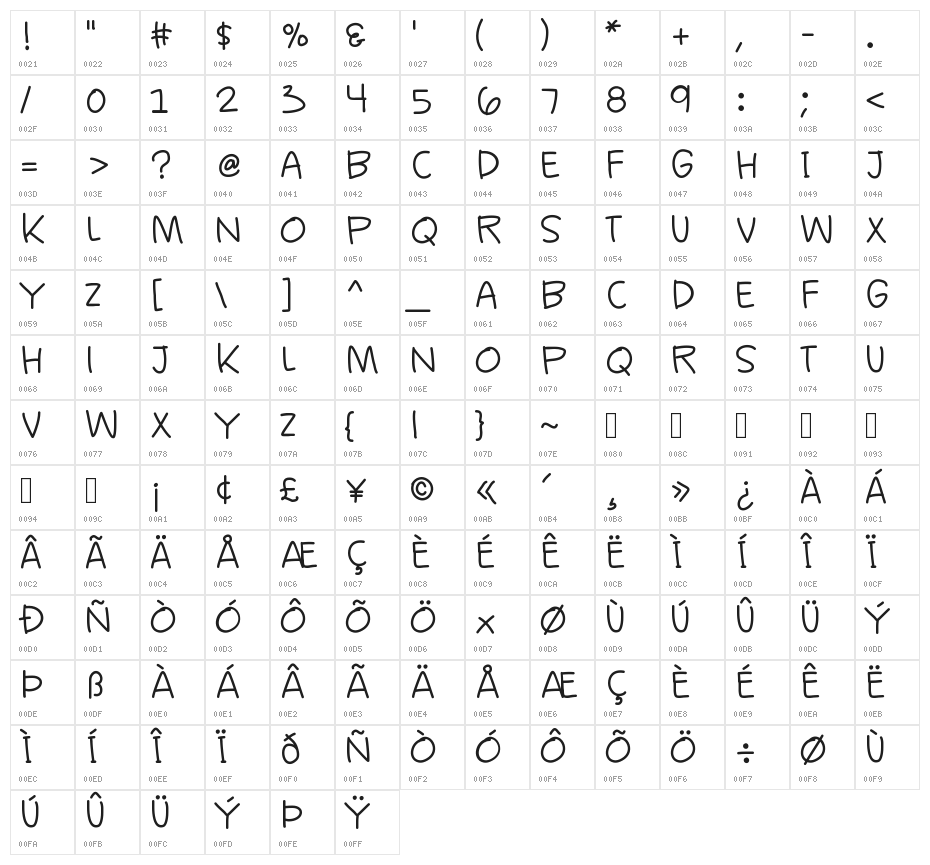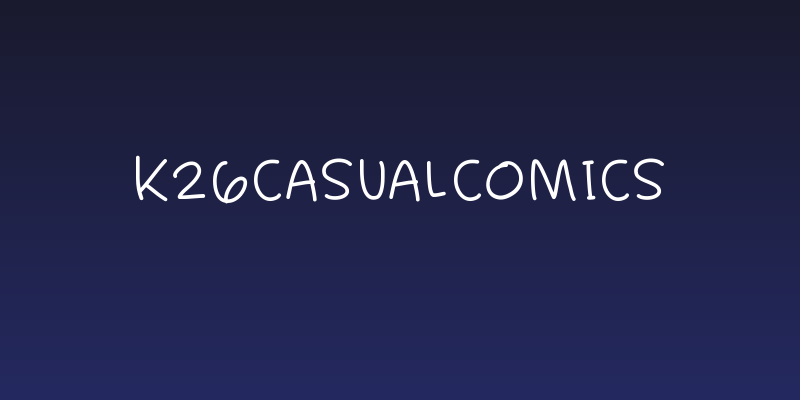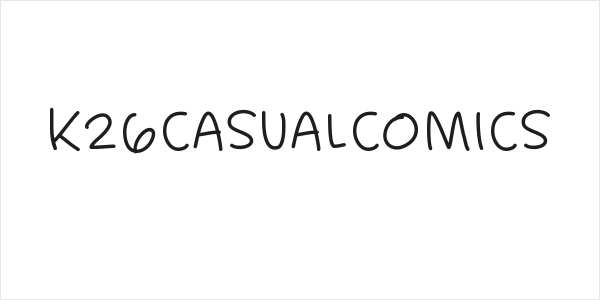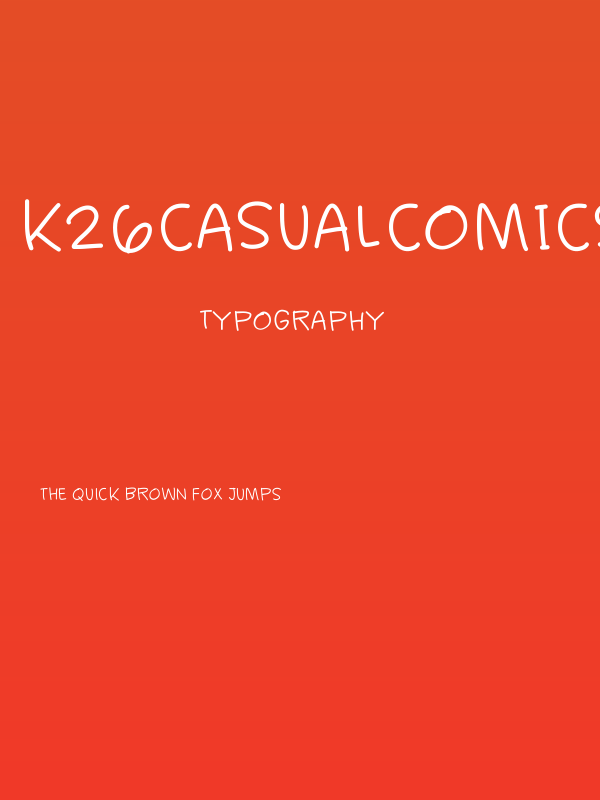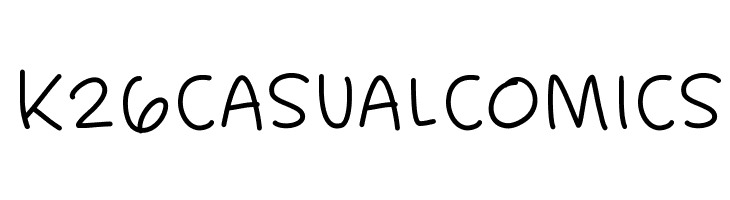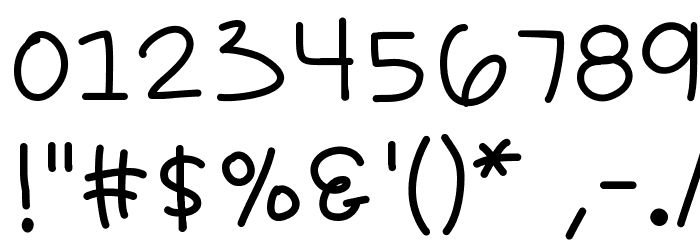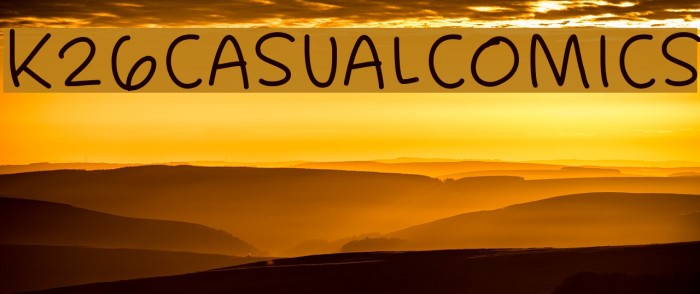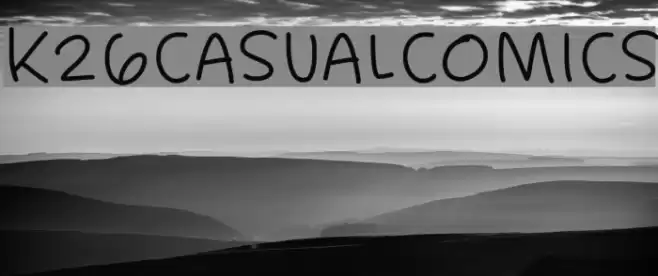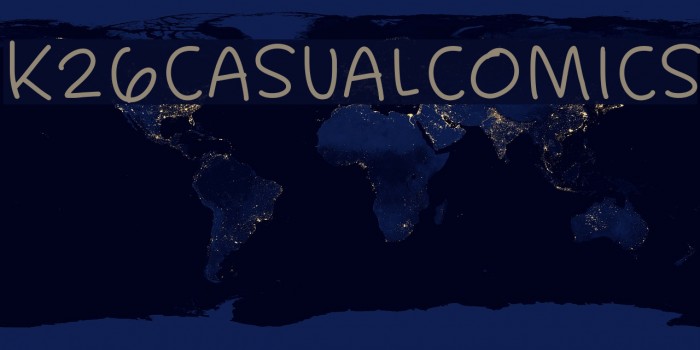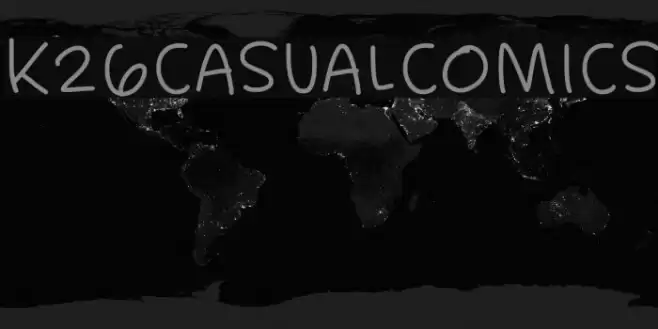
K26CasualComics Font
K26CasualComics Description
This font exudes a playful and informal vibe, reminiscent of handwritten comic book lettering. The characters are rounded and slightly irregular, giving them a casual and approachable feel. The strokes are consistent in thickness, providing a uniform appearance across all characters. The font maintains a balance between readability and personality, making it suitable for projects that require a friendly and engaging tone. The spacing between characters is normal, ensuring clarity and legibility even in longer texts. This style is perfect for capturing attention while maintaining a light-hearted and fun aesthetic.
| Overall Style | Casual |
| Use Case | Headlines, Informal text, Comics |
| Proposed Projects | Ideal for comic books, children's books, casual branding, and playful graphic design projects. |